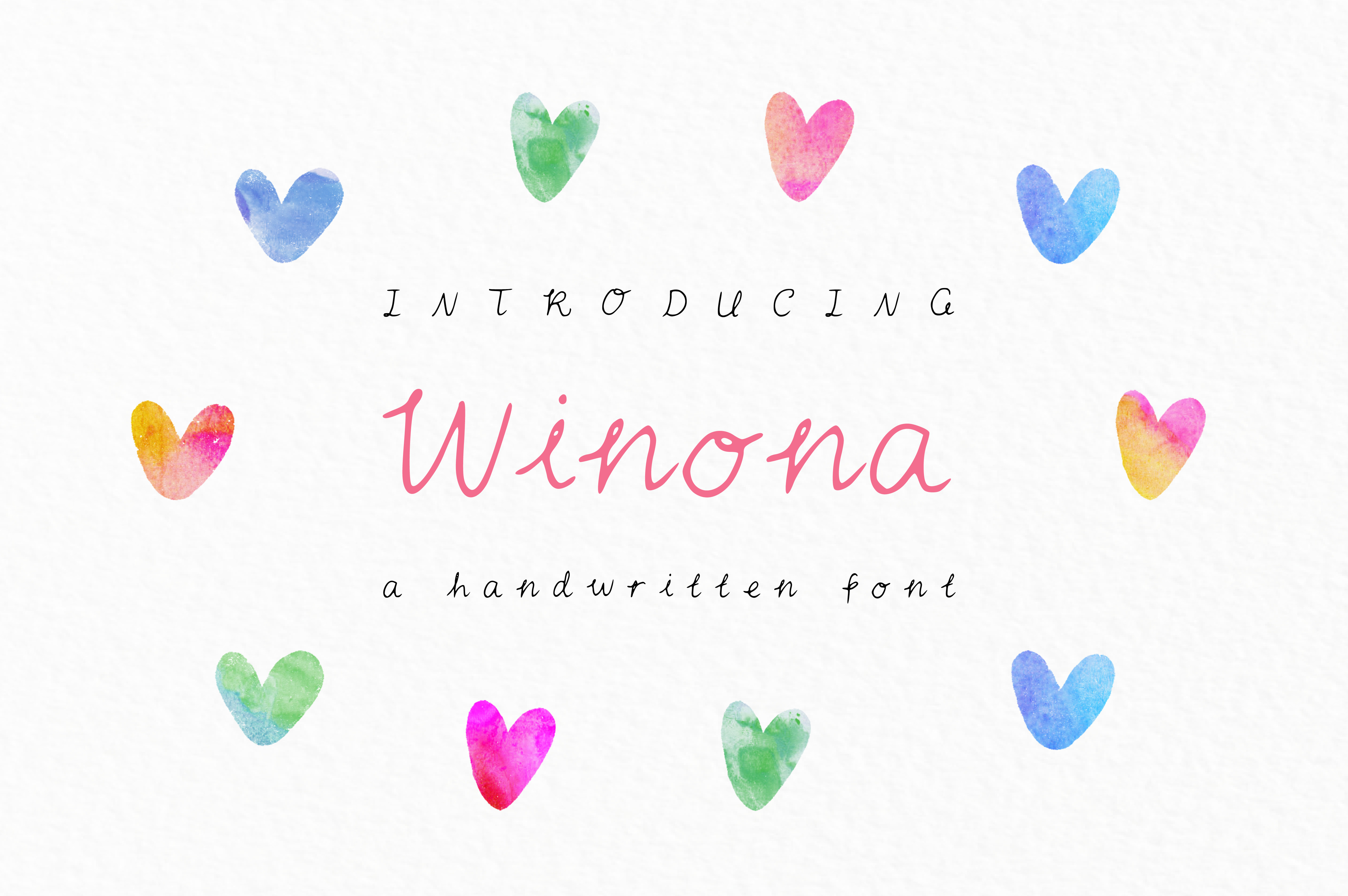
Winona Script Font
Winona is a neat and feminine handwritten font, created by hand using a thin point pen. It’s perfect for feminine logos, branding, invitations, quotes, business cards, and so forth!
Winona is currently only available in the English language. It works with upper case and lowercase letters, as well as all number and special characters.